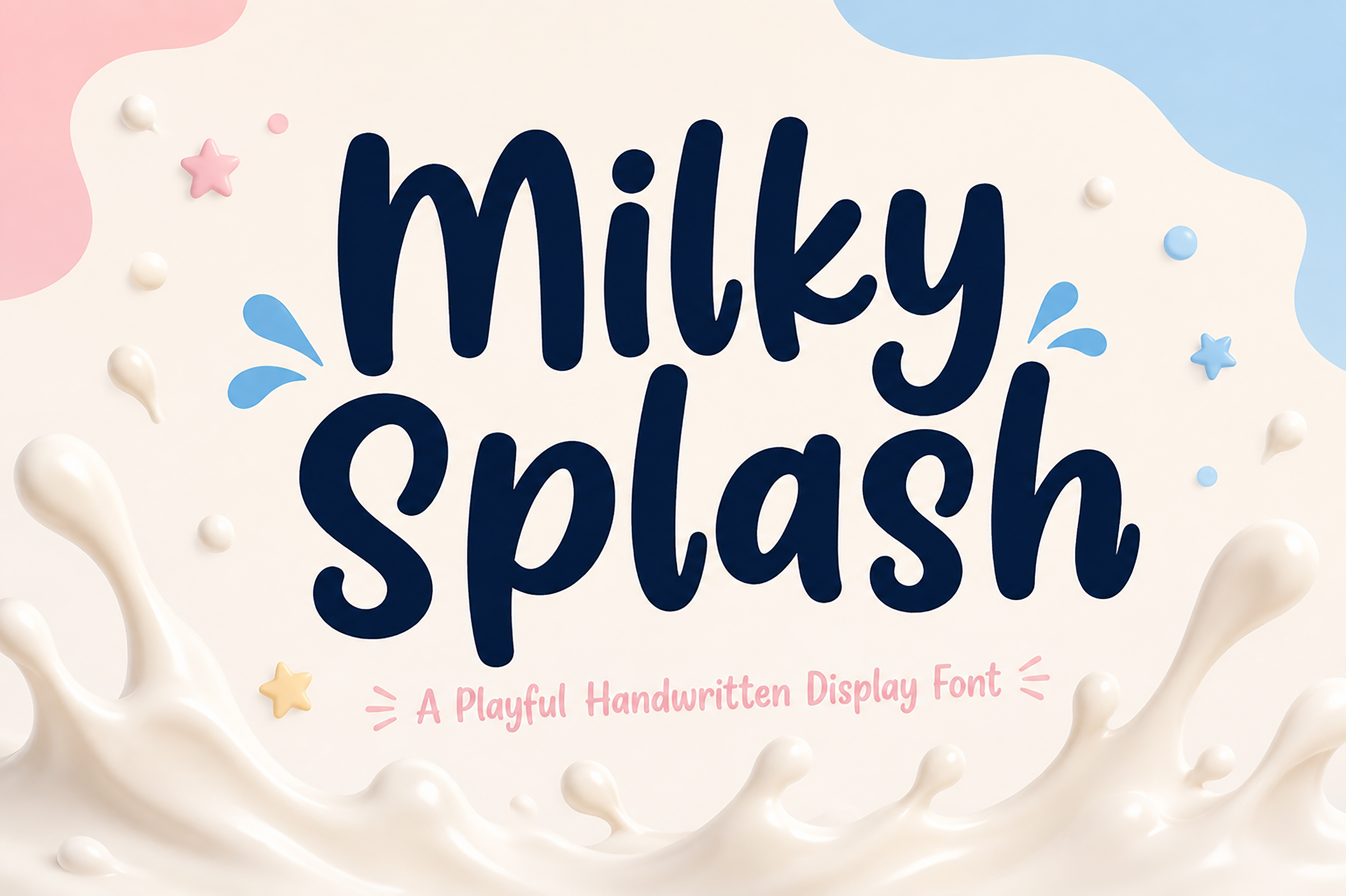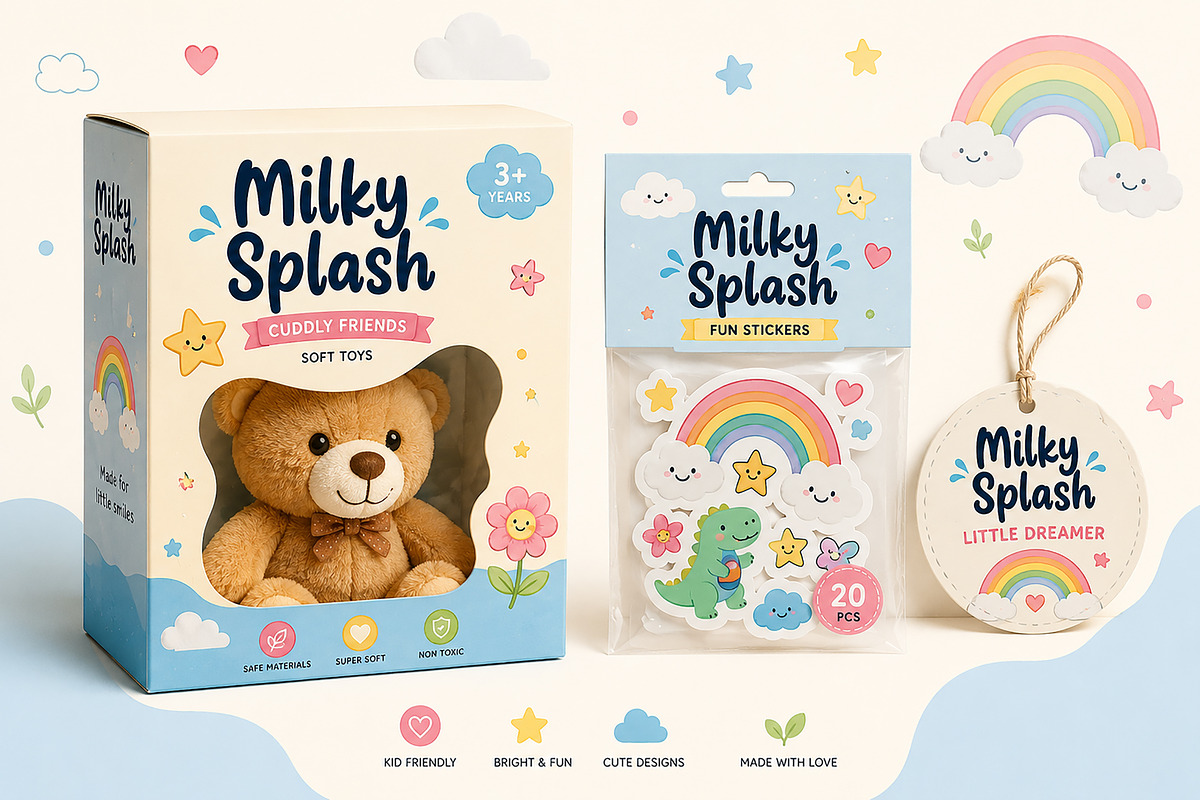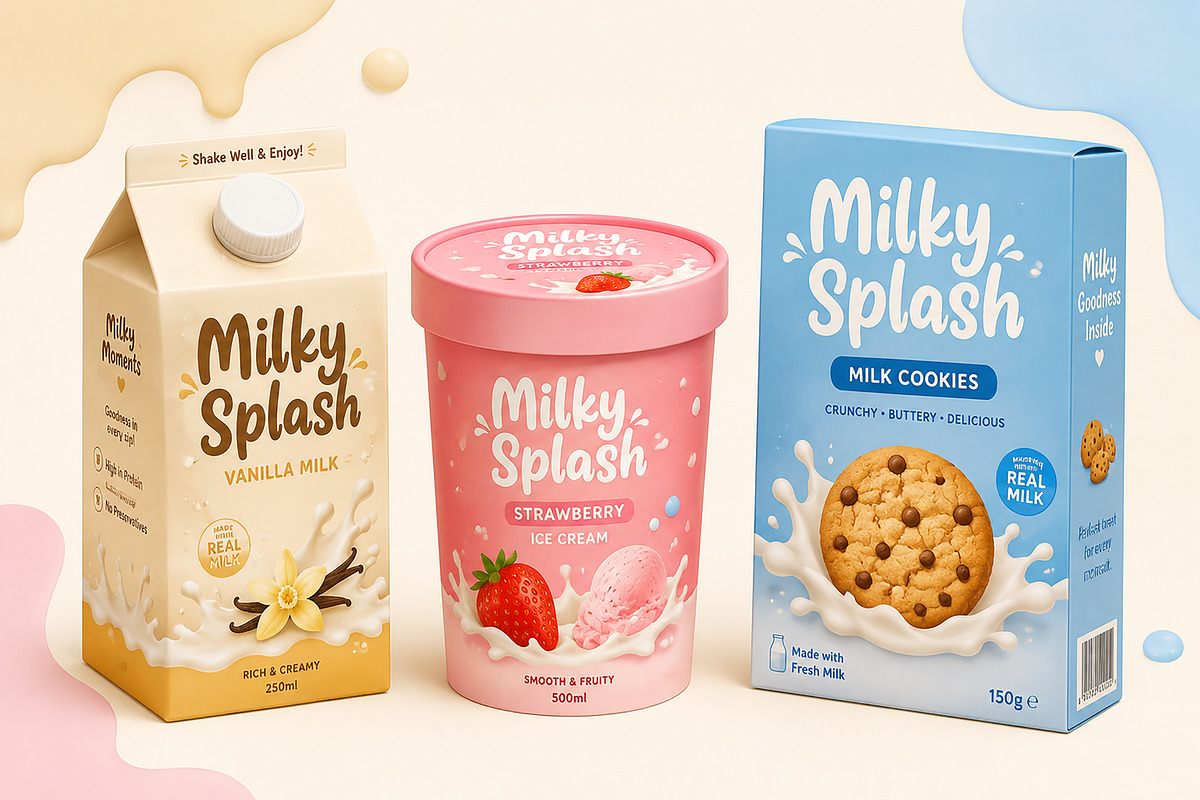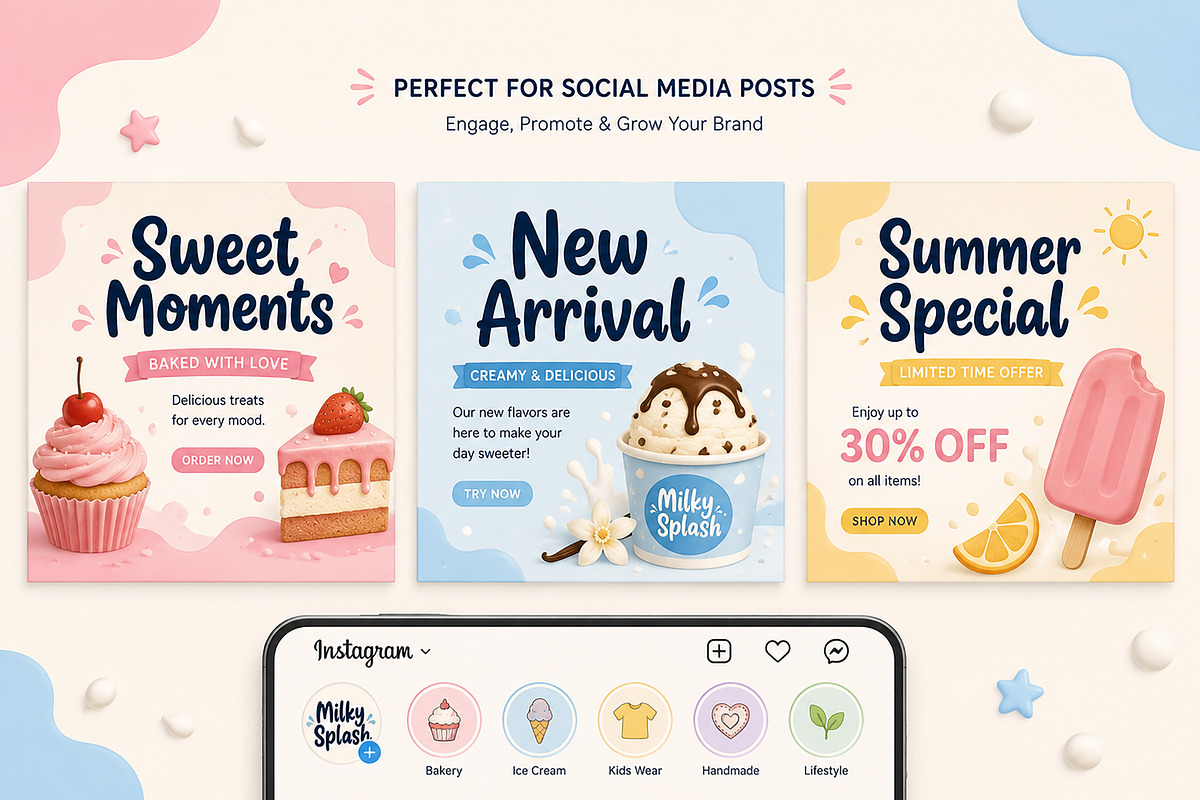
Milky Splash – A Handwritten Font
Milky Splash – A Playful Handwritten Display Font
Bring a fun, sweet, and cheerful personality to your designs with Milky Splash, a playful handwritten display font featuring smooth curves, rounded shapes, and a friendly handwritten feel. Designed for creatives, small businesses, and branding projects, this font is perfect for adding warmth and charm to any design.
Whether you're creating product packaging, children's branding, social media graphics, logos, or playful marketing materials, Milky Splash helps your designs stand out with a cute and modern look.
Food & Beverage Branding
Milk & Dairy Packaging
Ice Cream Shops
Bakery & Dessert Brands
Candy & Snack Packaging
Kids Products
Toy Packaging
Children's Books
School Projects
Baby Shower Designs
Nursery Branding
Cute Logos
Social Media Posts
Instagram Graphics
Facebook Promotions
Posters
Flyers
Greeting Cards
Stickers
Labels
T-Shirts
Cricut & Silhouette Projects
DIY Crafts
Printable Designs
Invitations
Smooth Handwritten Style
Cute & Friendly Appearance
Clean Rounded Letterforms
Easy to Read
Great for Headlines & Logos
High Quality Letter Spacing